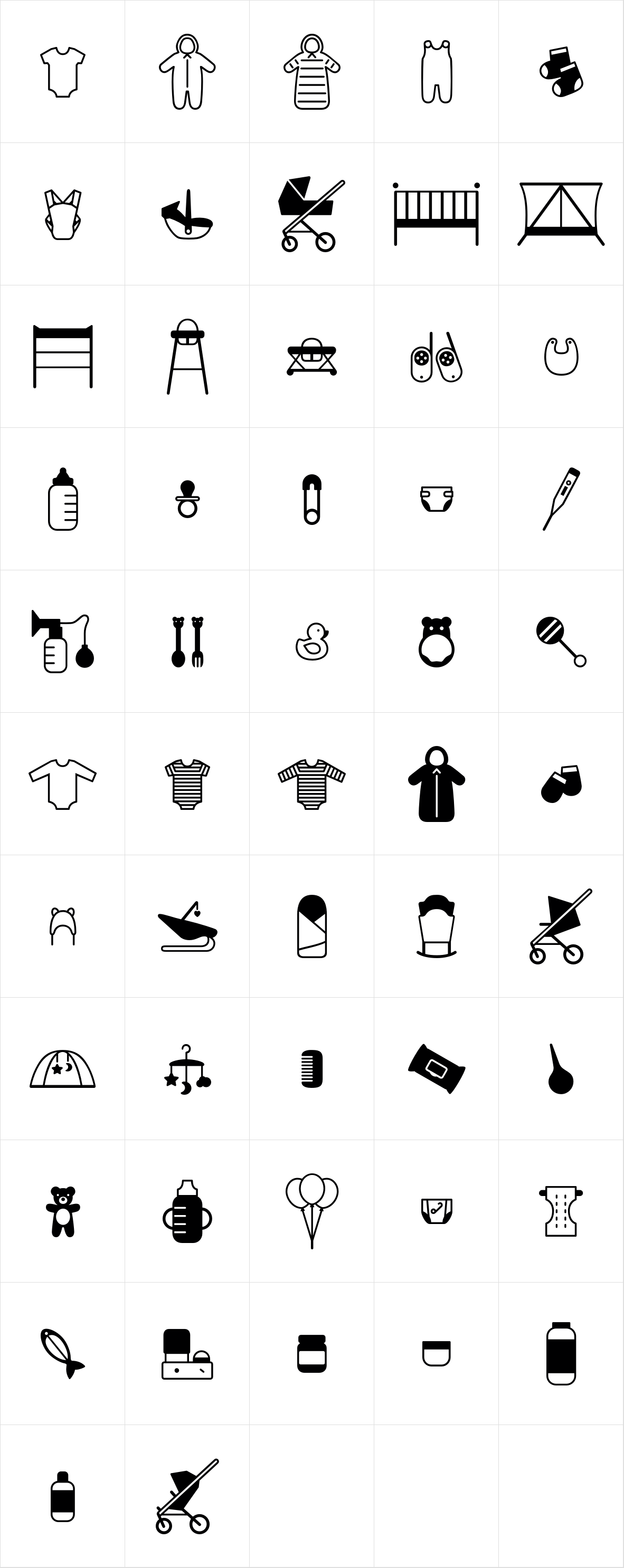
Oh Icons Baby Font
- Oh Icons is a family of 382 icons divided into three thematic sets. Each set contains 52 characters, plus alternate glyphs in Open Type Stylistic sets. Every icon can be used independently, but you can also merge them to design an adult or a baby figure, a nursery room or to dress a dog. Black backgrounds will let you colour your icons. Have fun and stay tunned for the new topics already in the works!